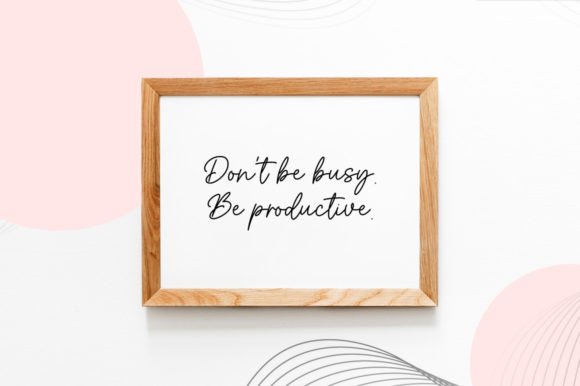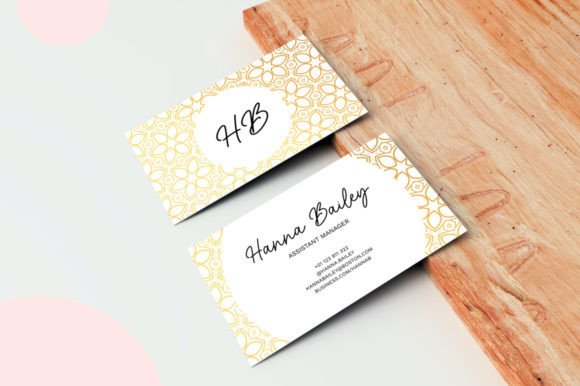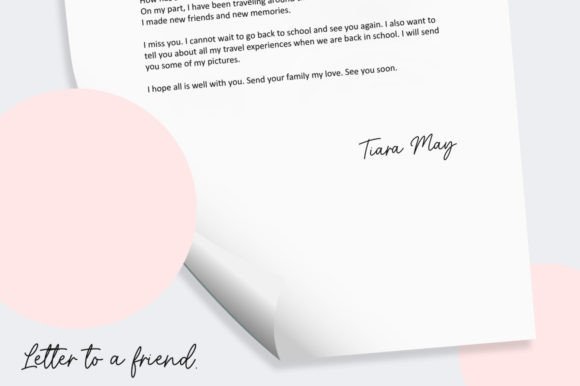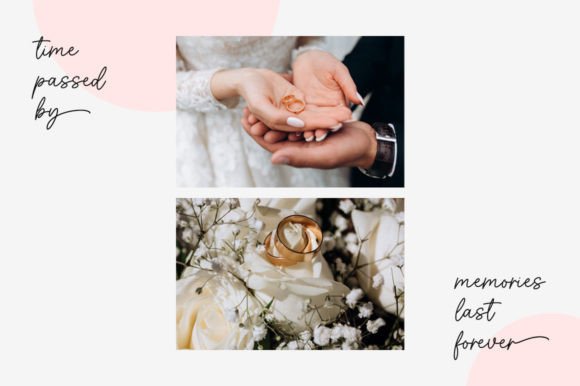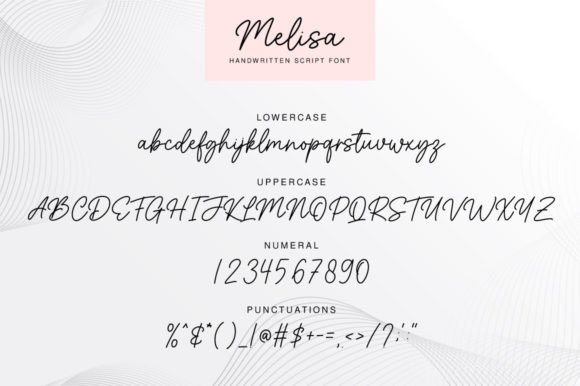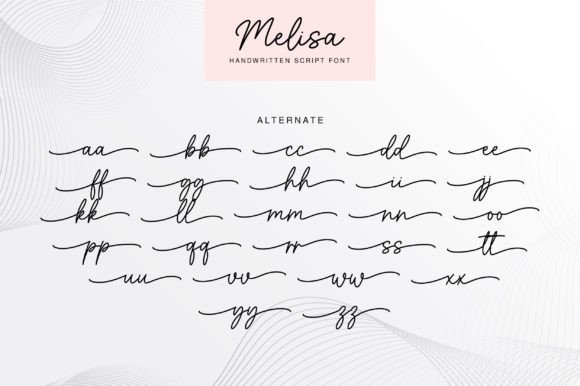
Introduction to Melisa Font
Melisa is a beautiful, well-balanced, and new-style script font.
It is defined by smooth curves and is perfect for fashion branding or editorial designs This font is PUA encoded, which means you can access all glyphs and swashes with ease.